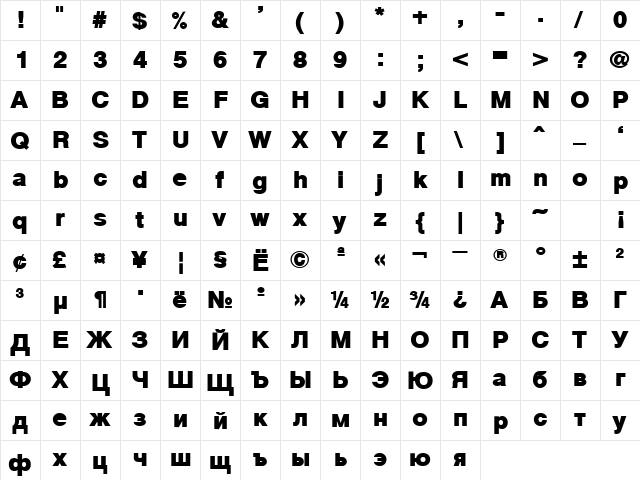
Cyrvetica Extra Bold Font Preview
Cyrvetica Extra Bold
Cyrvetica Extra Bold Font Details
Design Context for Cyrvetica Extra Typeface
Cyrvetica Extra offers clean, dependable letterforms without strong stylistic allegiance, making it a practical choice for designers who need flexibility. The heavy weight commands attention and anchors typographic hierarchies.